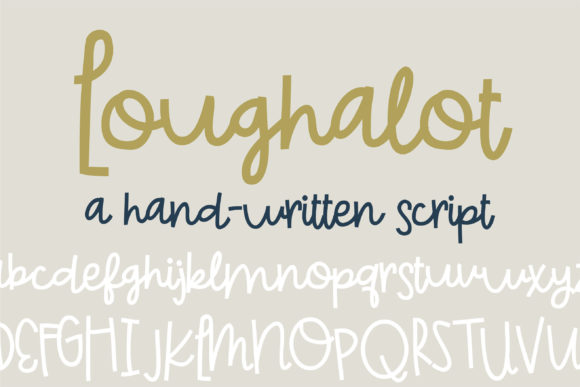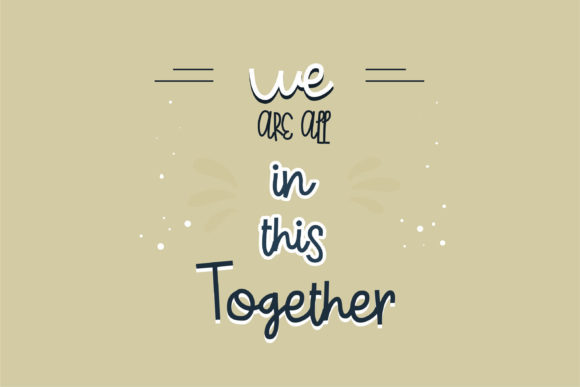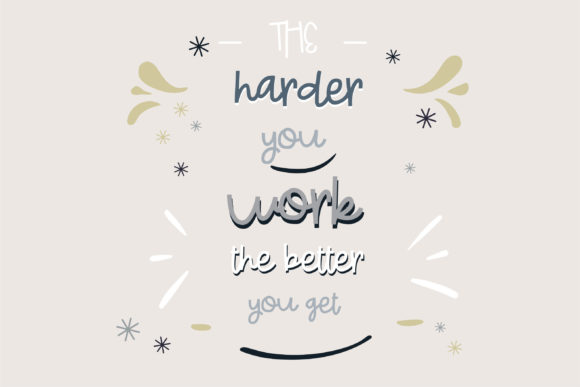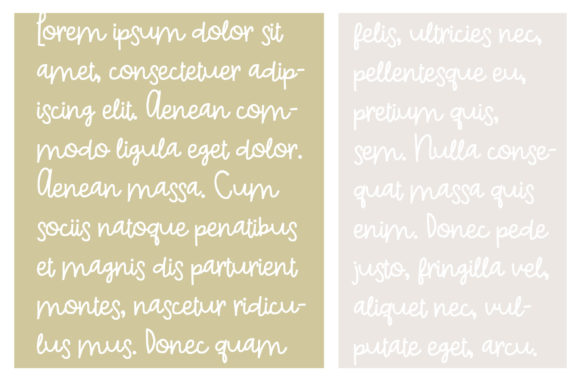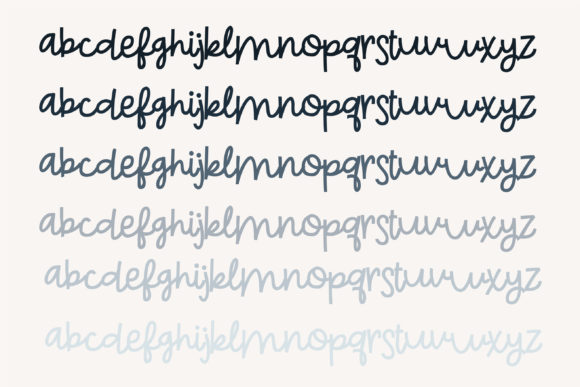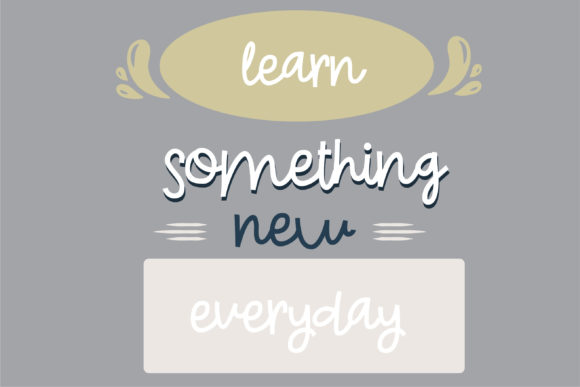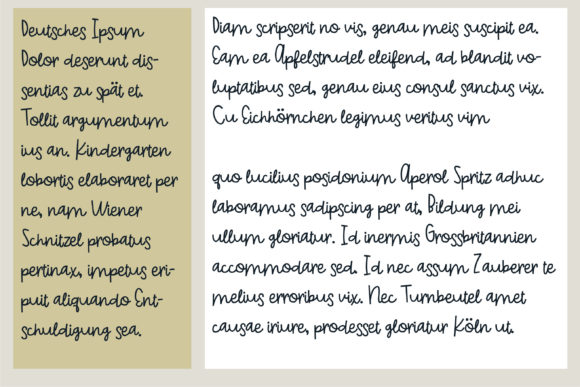
Loughalot Font
About Loughalot Font
Loughalot is a cute, quirky and natural handwritten font. You can use it for various projects, such as blog posts, logos, branding, ads, invitations, greeting cards, planners, photo albums, decorations, and much more.